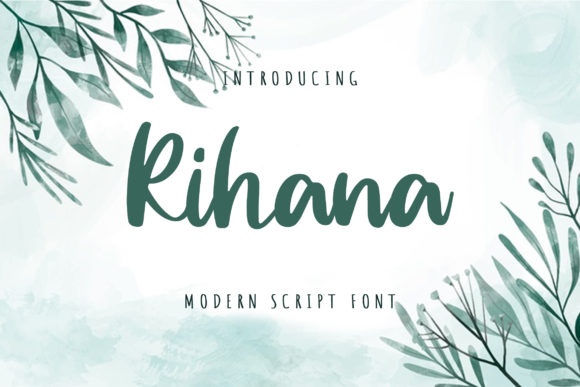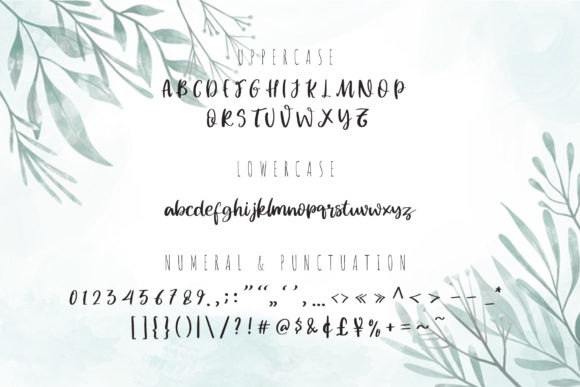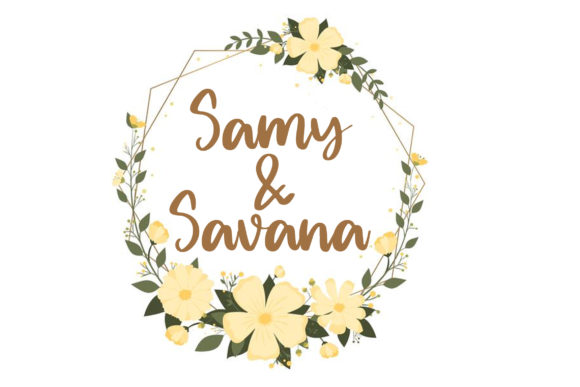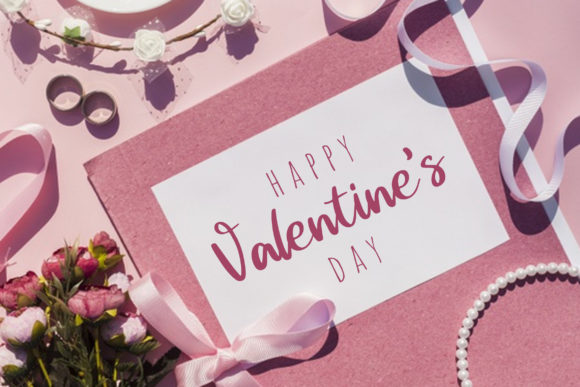
About Rihana Font
Introducing “Rihana,” a beautiful, trendy, and relaxed script font that adds a touch of elegance and charm to your designs. With its unique and eye-catching letterforms, this font is the perfect choice for creating captivating logos, impactful branding, and inspiring quotes.
The beauty of “Rihana” lies in its stylish and contemporary design. Each letter has been meticulously crafted to capture a sense of effortless sophistication and modernity. The flowing and relaxed nature of the script adds a touch of fluidity and grace to your typography, creating a harmonious and visually appealing composition.
Whether you’re designing a logo for a fashion brand, creating a stunning visual identity for a business, or crafting motivational quotes for social media, “Rihana” will make your design stand out. Its distinct and beautiful touch adds a level of uniqueness and personality that resonates with viewers and leaves a lasting impression.
The versatility of “Rihana” allows it to adapt to various design contexts. It shines in logos, where it can be the focal point of your brand identity, reflecting its style and values. Its trendy and relaxed nature also makes it suitable for branding materials, such as packaging, business cards, and website headers, creating a cohesive and visually appealing brand presence.
Quotes and inspirational messages come alive with “Rihana.” The elegant and flowing script brings a sense of warmth and positivity to your words, enhancing their impact and making them more memorable. Whether it’s for social media posts, posters, or merchandise, this font adds a touch of beauty and charm to your quotes, attracting attention and engaging your audience.
The beauty of “Rihana” extends beyond its individual letters. The overall composition of the font creates a cohesive and visually pleasing aesthetic. The spacing and ligatures are carefully designed to ensure smooth and natural connections between the letters, resulting in a seamless and harmonious script.
When using “Rihana,” you can be confident that your design will come alive with its unique and beautiful touch. Each letter carries its own character, adding a sense of personality and sophistication to your creations. Let “Rihana” be your go-to font for eye-catching logos, compelling branding, and inspiring quotes, and watch your designs flourish with elegance and style.